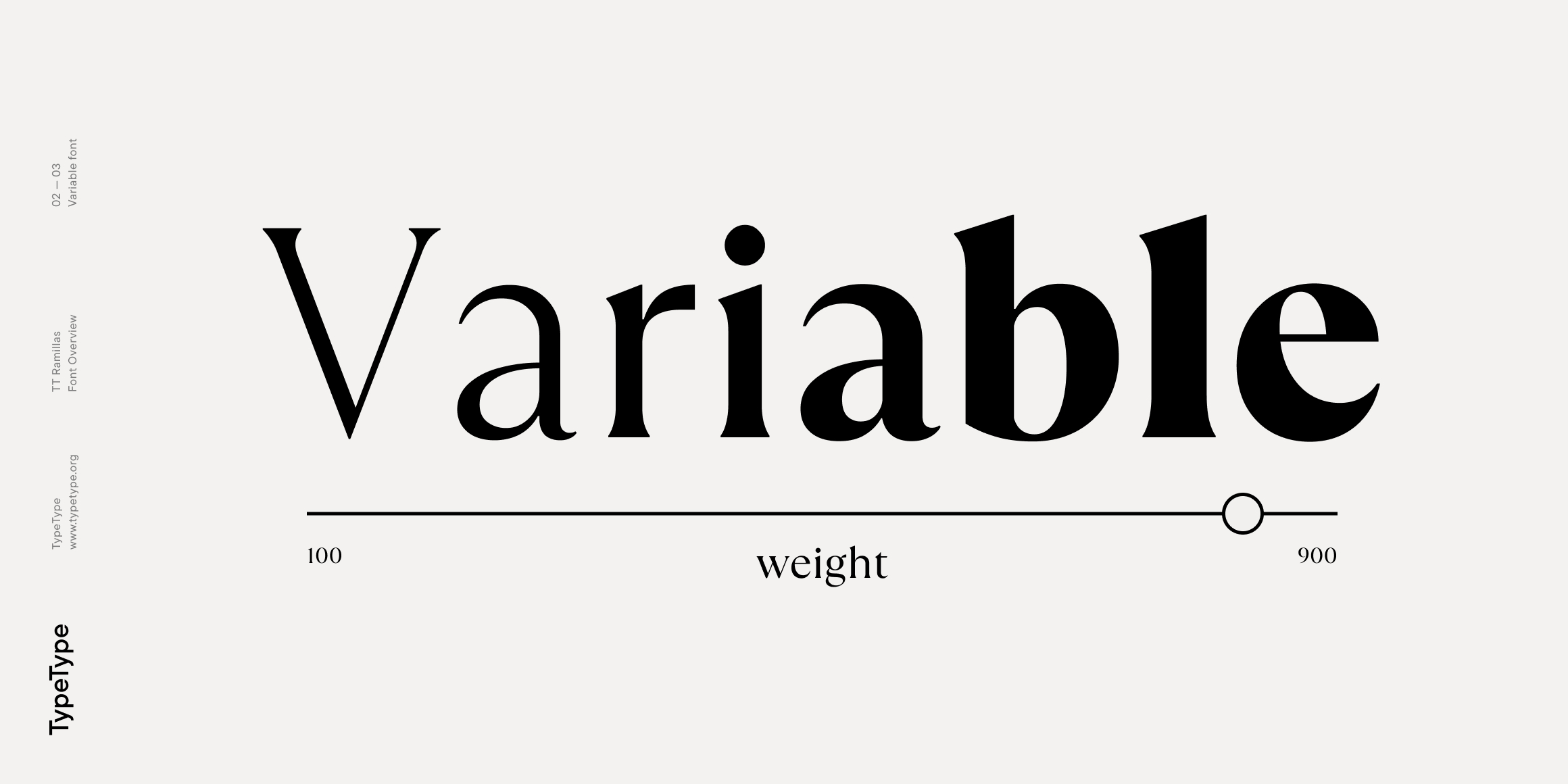
01 Variable
The typeface features a large set of graphic icons (characters and objects), dingbats (flowers, stars, and teardrops), and thirteen catchwords. All icons and dingbats are carefully selected and crafted to complement and interact with the font’s visual aesthetics in the best possible way. This typeface is well-suited for designing magazine covers, packaging, signs, and posters, as well as for branding and web design.
- TT Ricordi Greto Variable